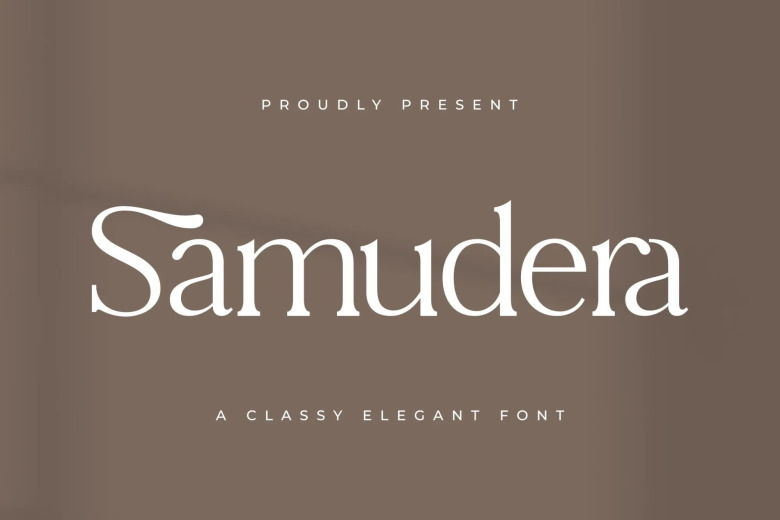
Samudera Serif Font
Samudera Serif Font, created by Storytype, A serif modern and classic typeface that has own unique style & modern look. This typeface is perfect for an elegant & luxury logo, book or movie title design, fashion brand, magazine, clothes, lettering, quotes, and so much more.